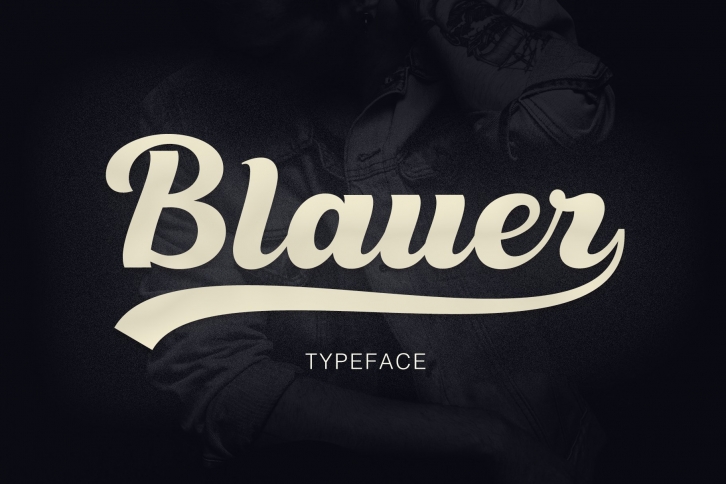
Blauer - is a versatile, multi-purpose font that is perfect for vintage and modern design. it will perfectly fit into any project, with its help you can create beautiful logos, inscriptions, templates, signs, highlight text, use for outdoor advertising. also in this font there are alternates, ligatures and swash, that will help you make your design even more attractive.
Alternates
Ligatures
swash